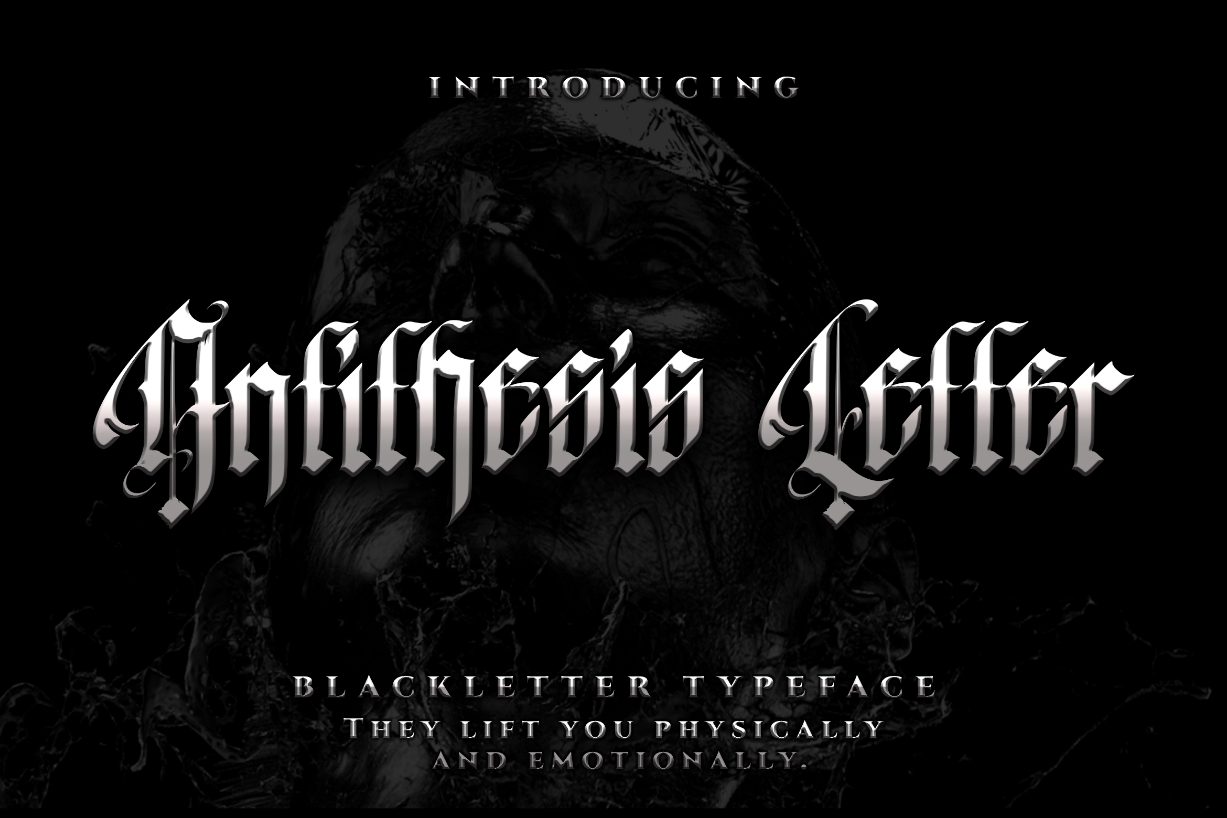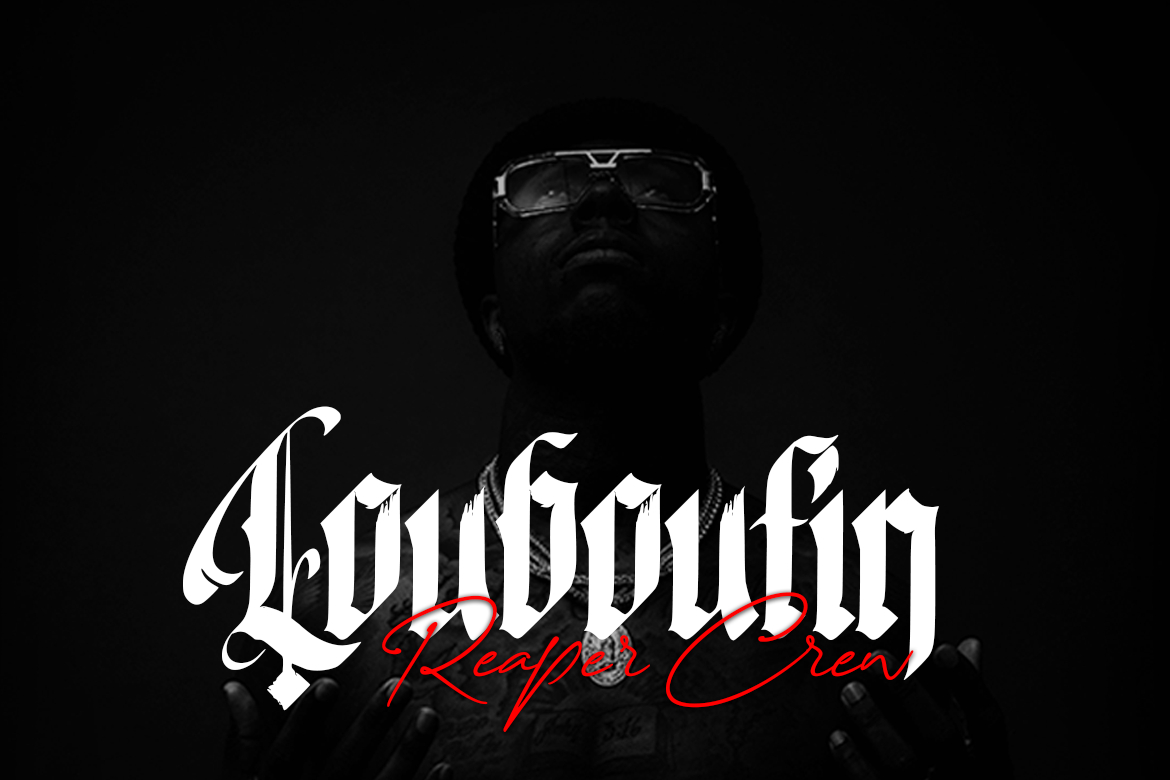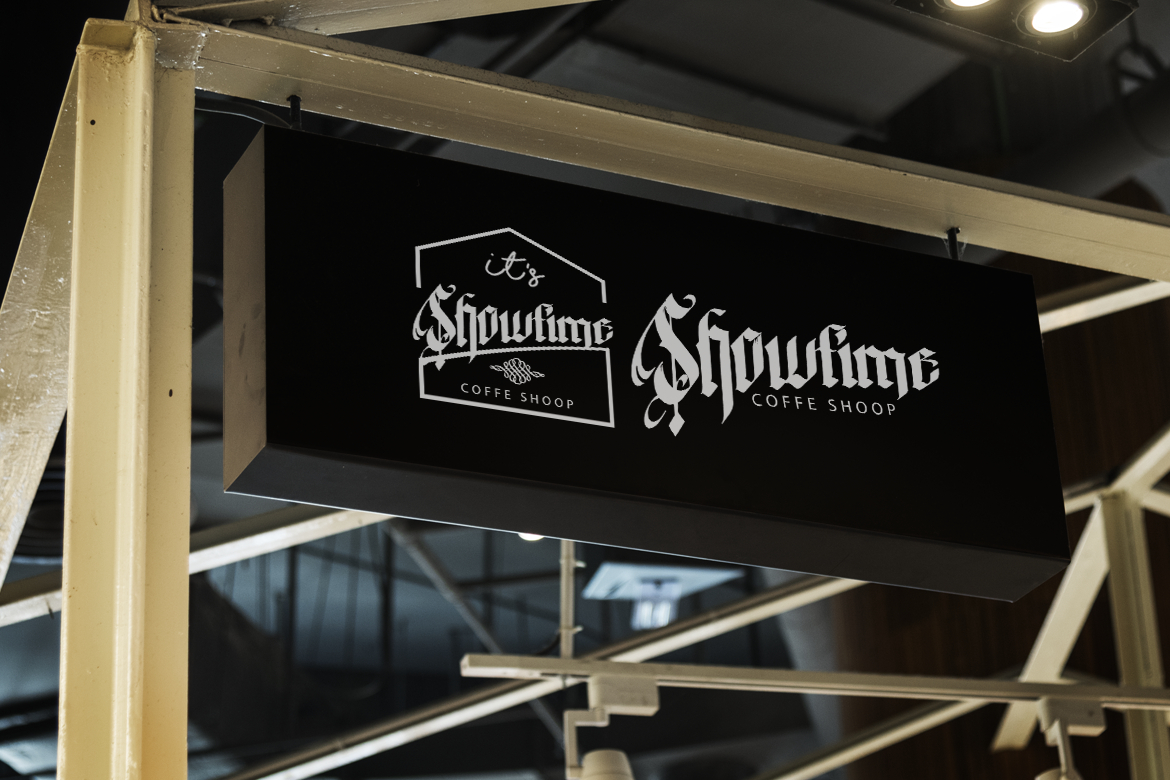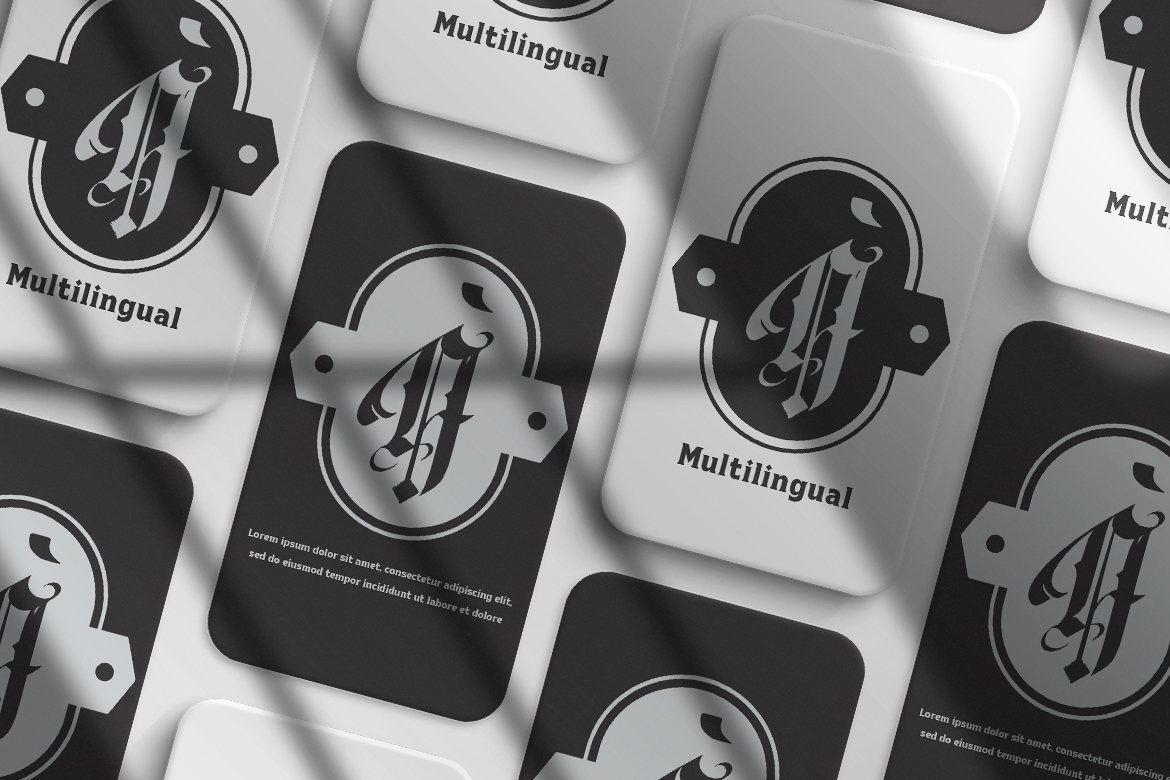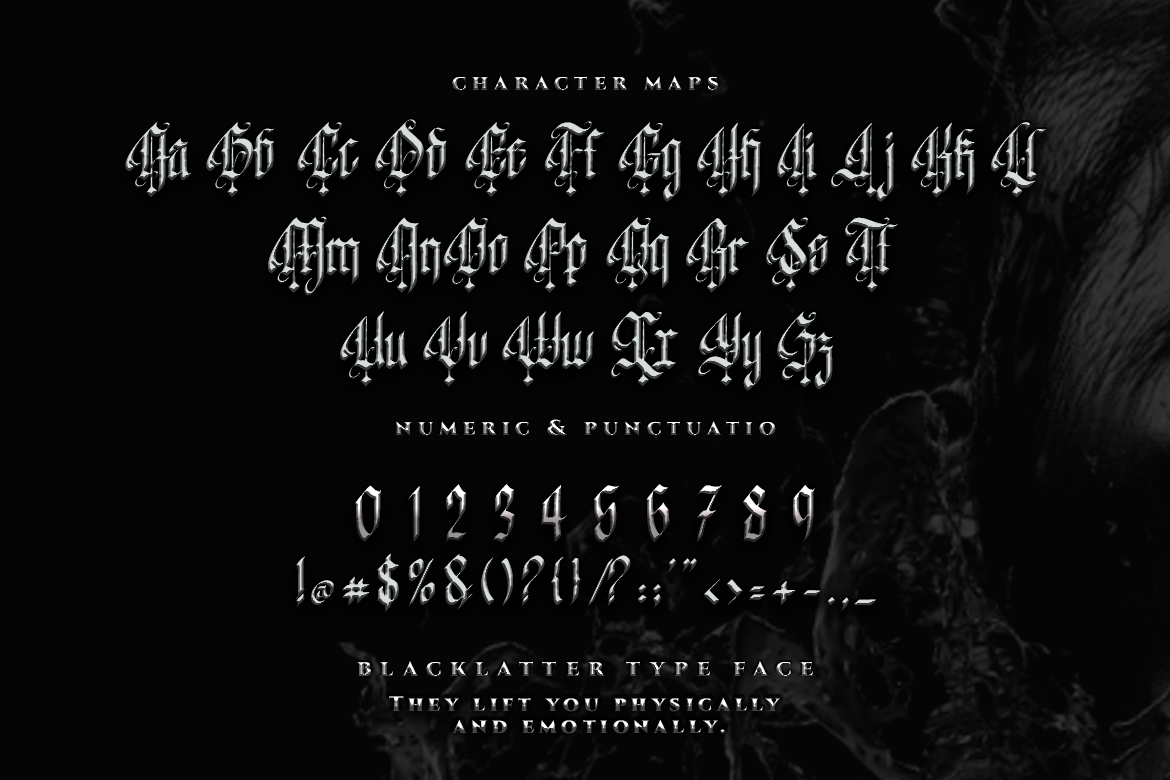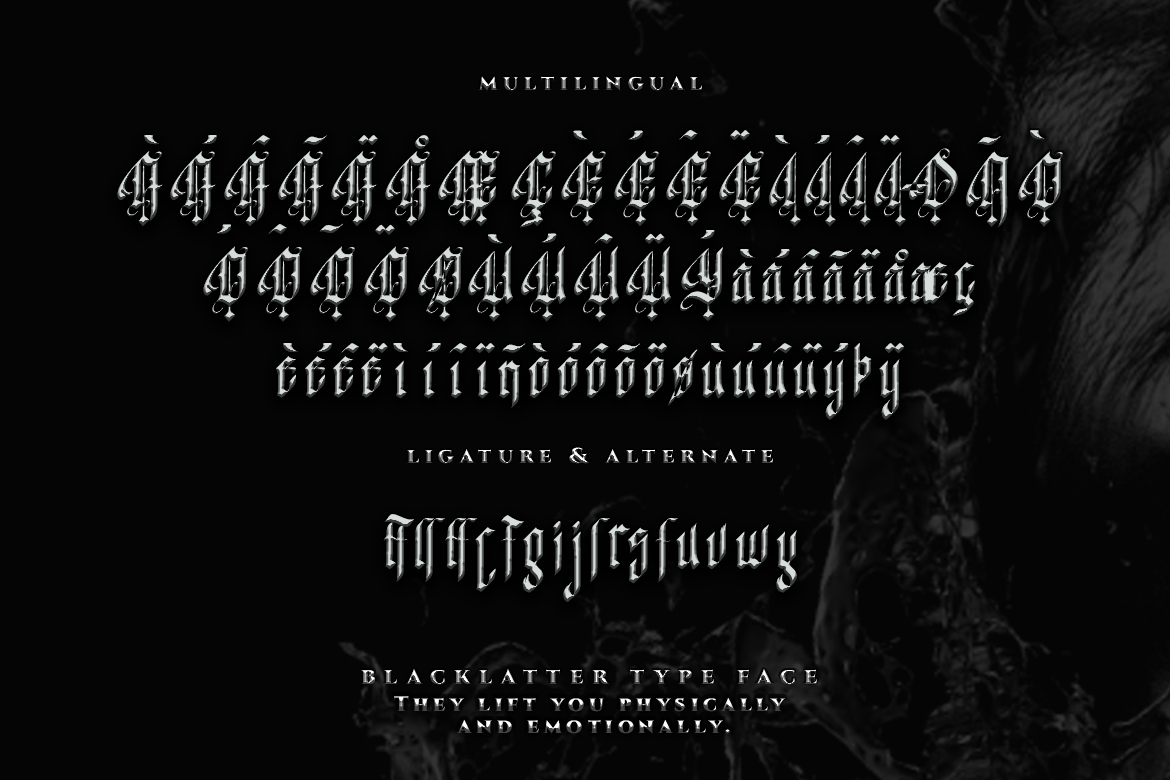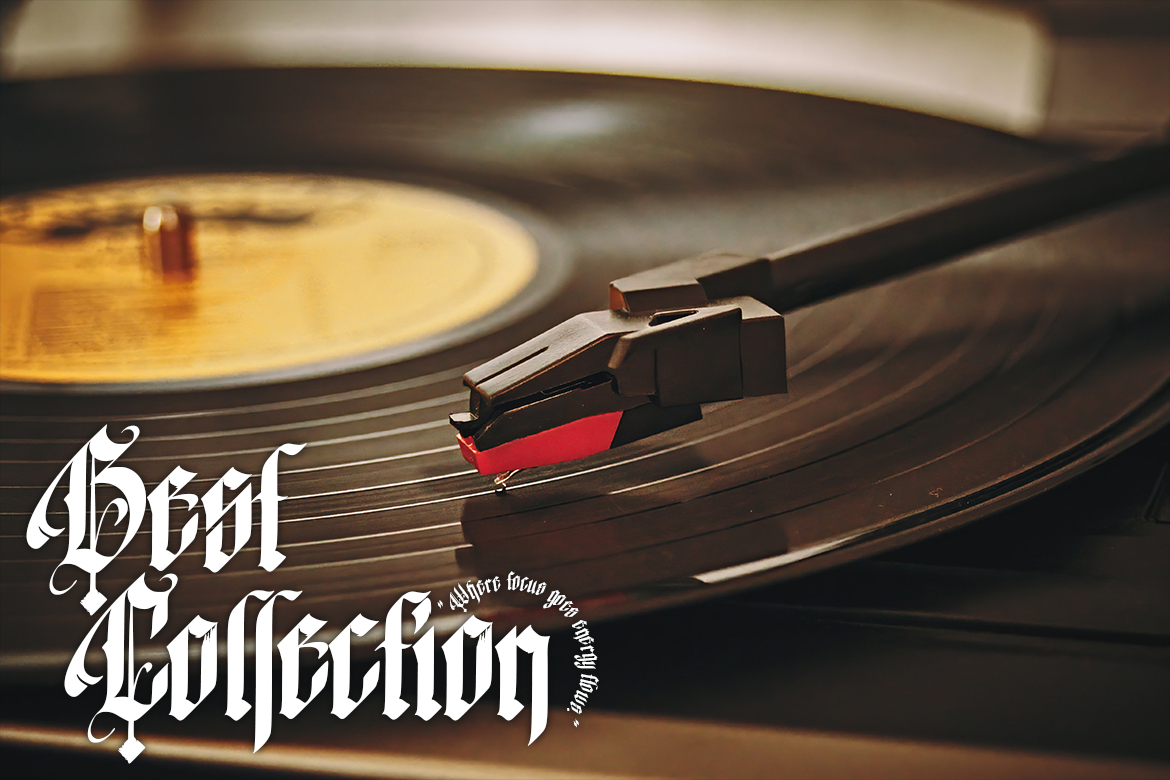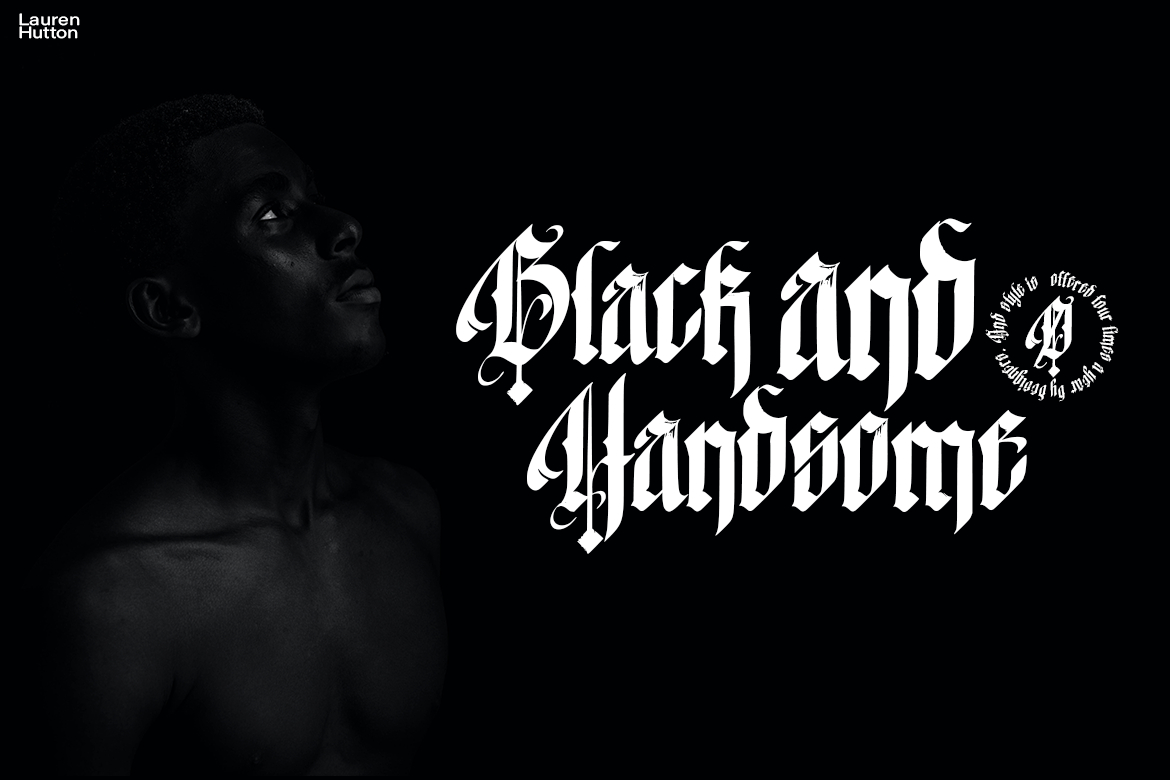
Antithesis Letter Font
About Antithesis Letter Font
Antithesis Letter is an elegant and classic blackletter font that will impress with its stylish features. Use it for product packaging, branding, or other projects that need bold and daring typography! Antithesis Letter is PUA encoded which means you can access all the amazing glyphs and ligatures with ease!